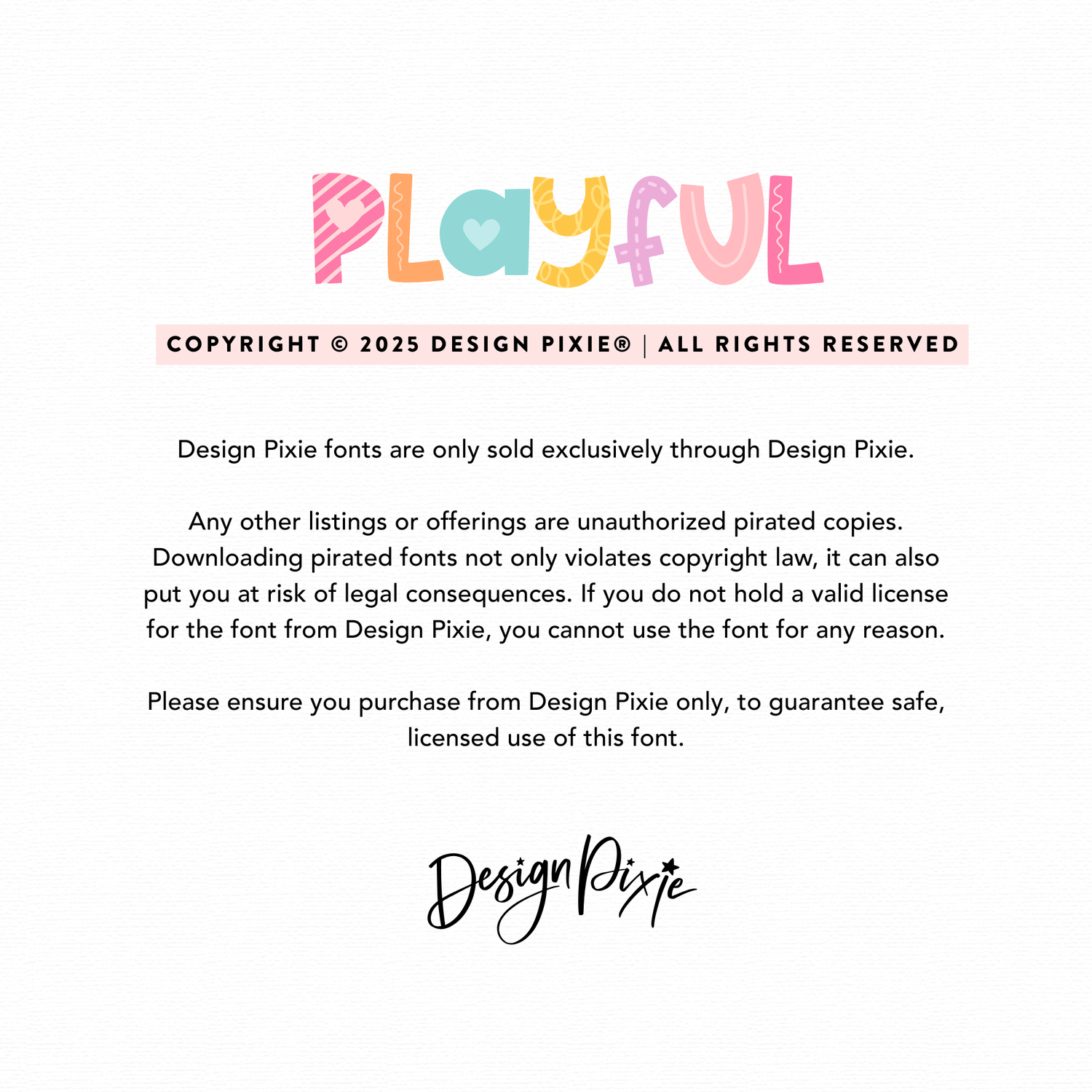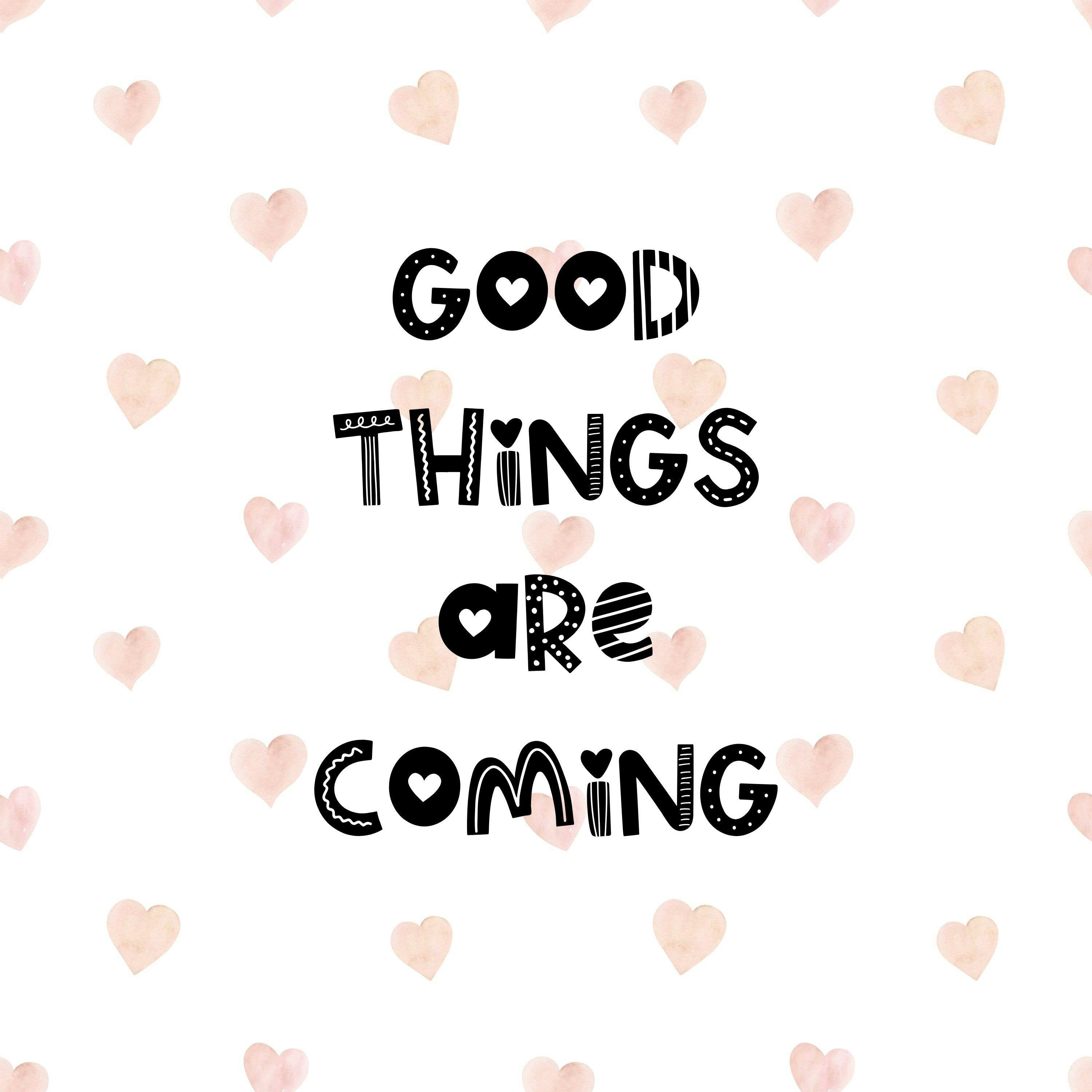
Playful Font
Elevate your design projects with the Playful font, a lively and energetic typeface perfect for adding a burst of joy and creativity to any text. Whether you're working on branding, packaging, or social media graphics, this font brings a touch of whimsy that is sure to captivate your audience. This creative pattern font includes the lowercase character selections in bold type, and the uppercase (same style of letters) in the patterns.
How To Use
Start by typing out your word in the lowercase. Then add a new layer of text on top in the uppercase to add the patterns on top. Use a rainbow color palette while typing to make the font stand out. I recommend using pale colors for the lowercase text that will sit underneath, then brighter colors for the uppercase patterned characters that will sit on top.
Bright and Cheerful Design
The Playful font lives up to its name by offering a design that is both bright and cheerful. Each letter is thoughtfully crafted with rounded edges and a casual, hand-drawn feel, making it ideal for projects that need a personal, approachable touch. This font is perfect for children’s products, creative blogs, fun merchandise, and anything that calls for a sense of youthful exuberance.